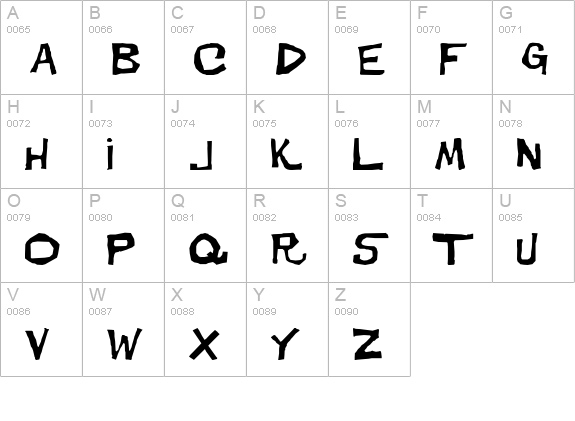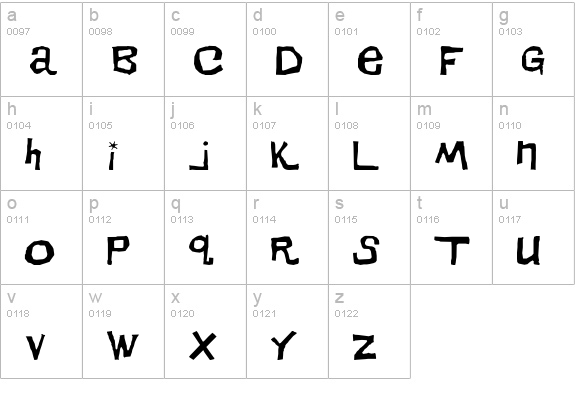
DirtDevil Font Details
DirtDevil font is a bold and rugged typeface that exudes a sense of strength and power. With its distressed and gritty appearance, this font is perfect for projects that require a touch of edginess and rawness. Whether you're designing a poster for a rock concert or creating a logo for a motorcycle club, DirtDevil font will surely make a statement. The best part? DirtDevil font is completely free to download at FontsMarket.com. You can easily add this unique and eye-catching font to your collection without spending a dime. Don't miss out on the opportunity to enhance your designs with the striking appeal of DirtDevil font. Download it now and unleash your creativity!